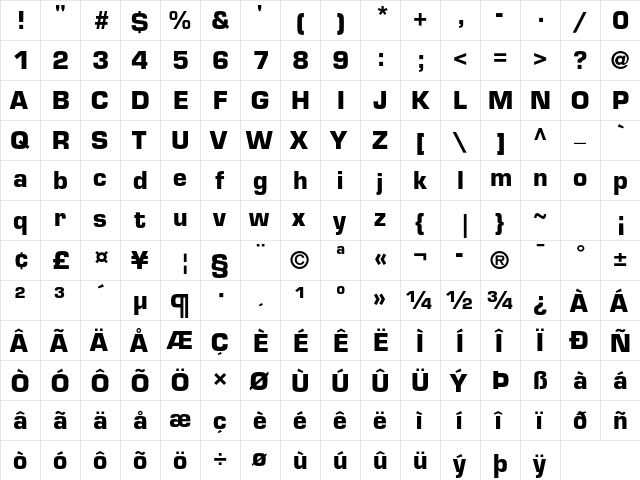
Eurostile LT Std Bold Font Preview
Eurostile LT Std Bold
| Designer | Aldo Novarese, A. Butti |
Design Context for Eurostile LT Std Typeface
Eurostile LT Std takes a measured approach to typography — its balanced proportions and neutral character make it a reliable workhorse for both digital and print work. The heavy weight commands attention and anchors typographic hierarchies.